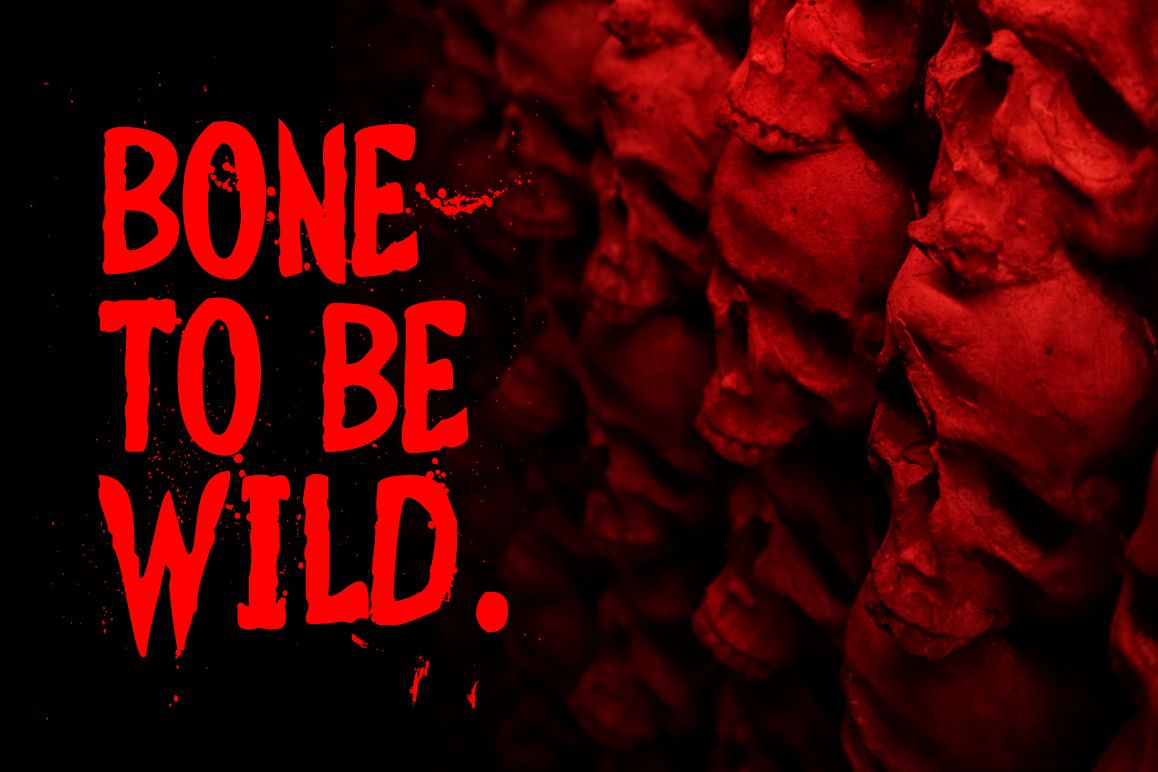
Goozabumps
GOOZABUMPS the all caps display festive typeface is all you need for this season. Perfect for designing blog logo, website logo, print ads, book covers, film covers, apparel, cards, logos, posters, etc.
Opentype features gives you more alternatives in designing.
• Basic Latin A-Z and a-z
• Symbols
• Kerning